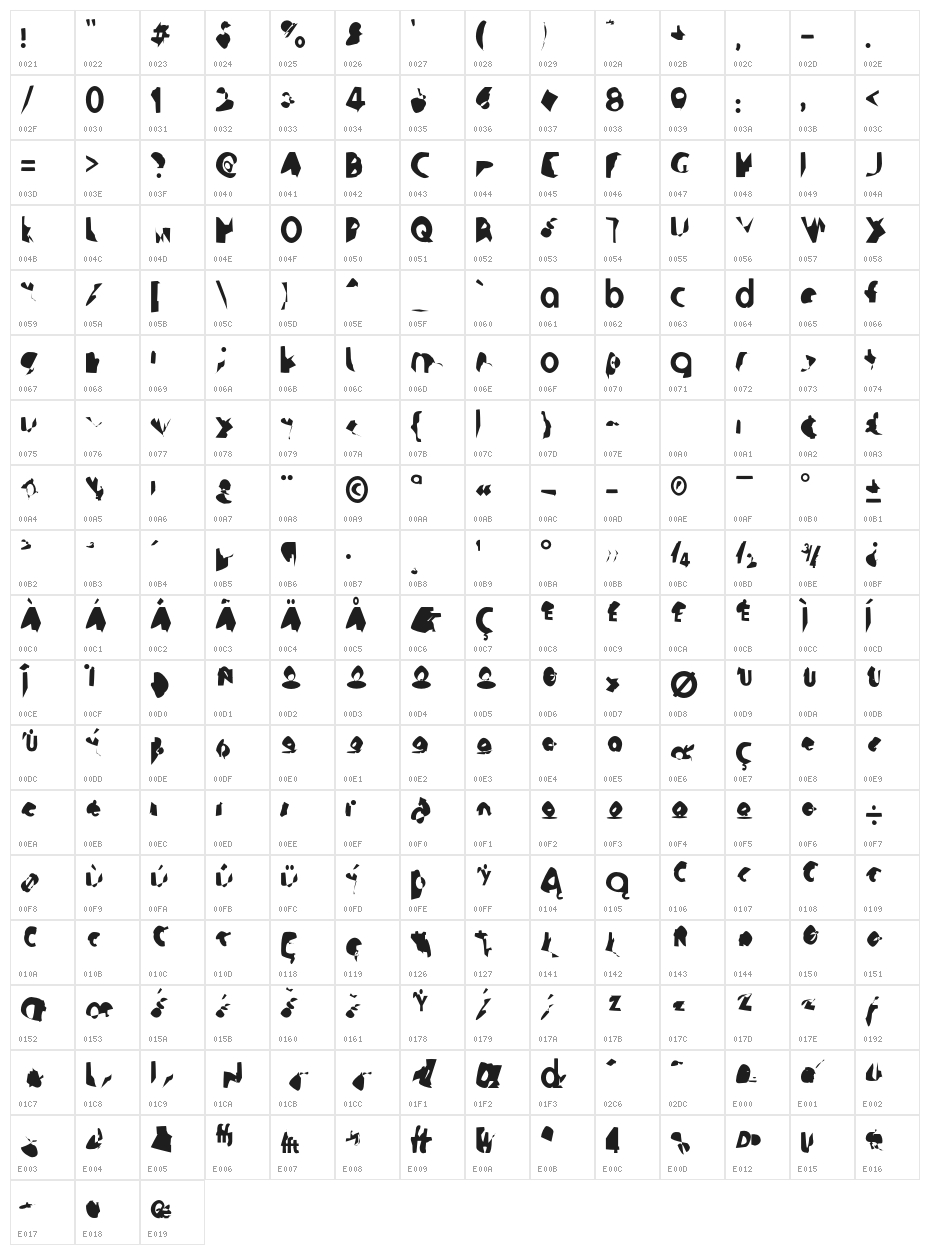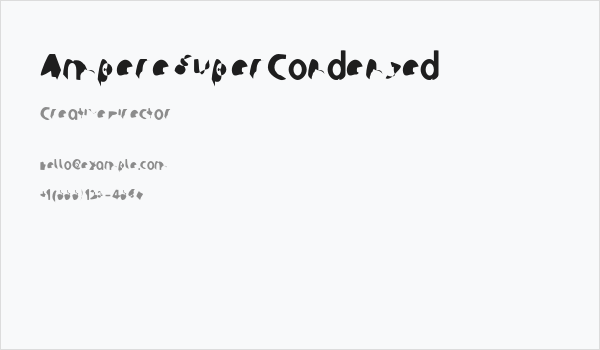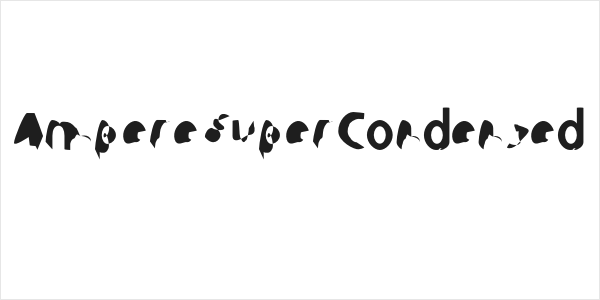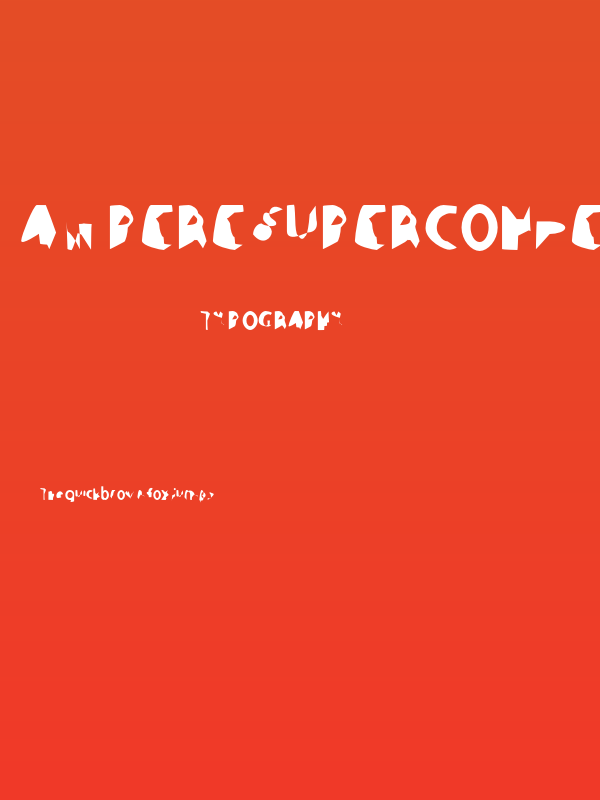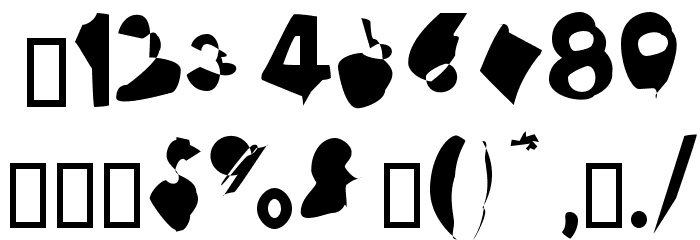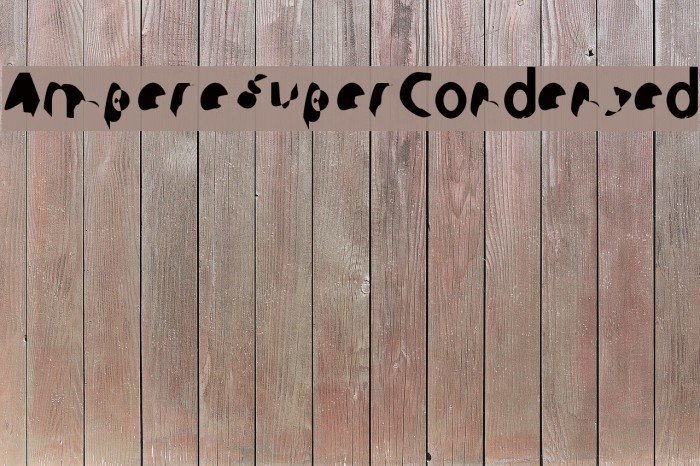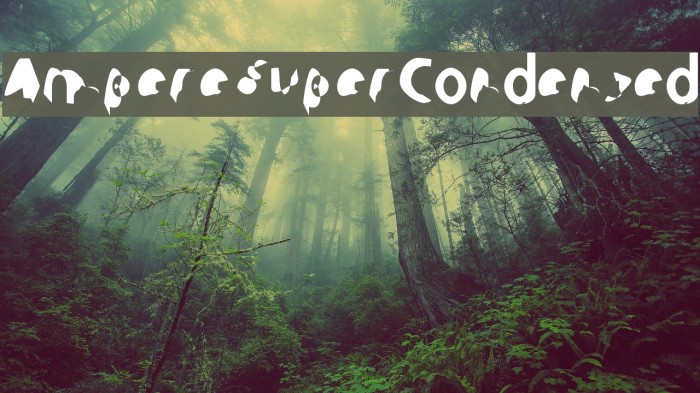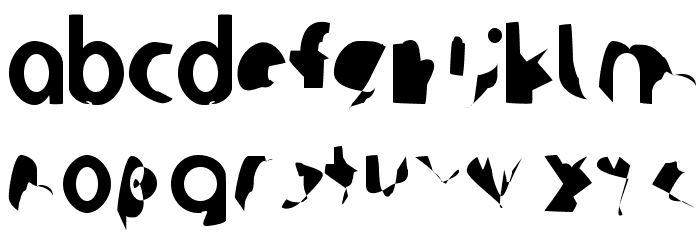
Ampere SuperCondensed Font
Ampere SuperCondensed Description
This font features a highly abstract and fragmented design, with characters appearing as if they are shattered or broken apart. The letters are bold and condensed, with sharp angles and irregular shapes that create a sense of movement and chaos. The uppercase and lowercase letters, as well as the numbers and special characters, all follow this distinctive style, making it a unique choice for projects that require a bold statement. The overall appearance is modern and avant-garde, suitable for creative and artistic applications.
| Overall Style | Modern, Avant-garde |
| Use Case | Headlines, Artistic projects, Posters |
| Proposed Projects | Ideal for artistic posters, album covers, experimental design projects, and any creative work that benefits from a bold, unconventional typeface. |